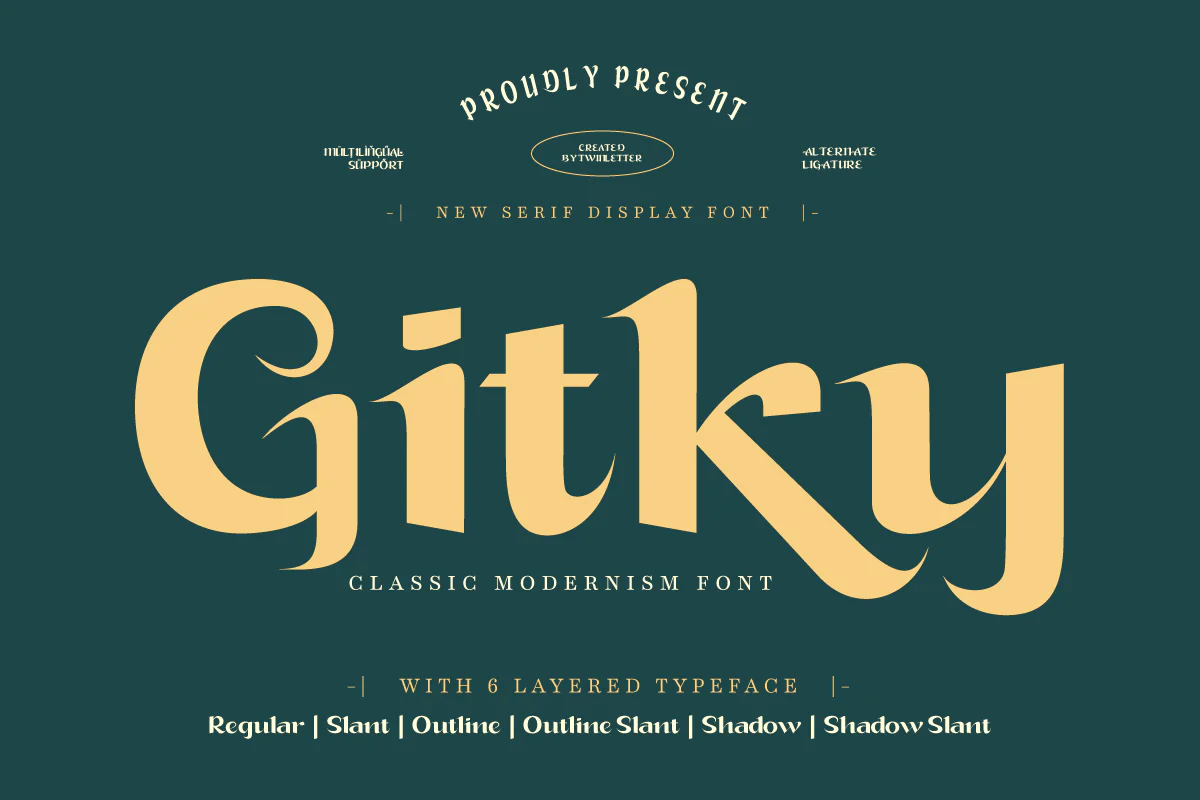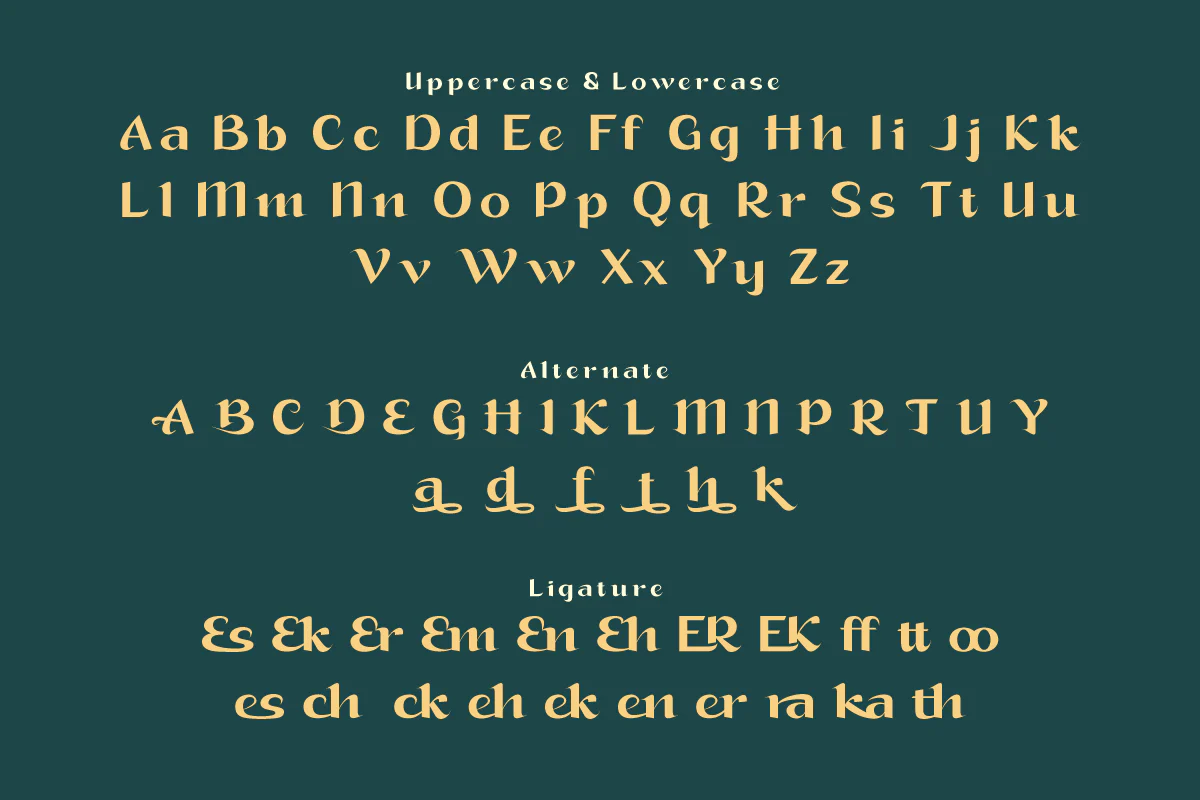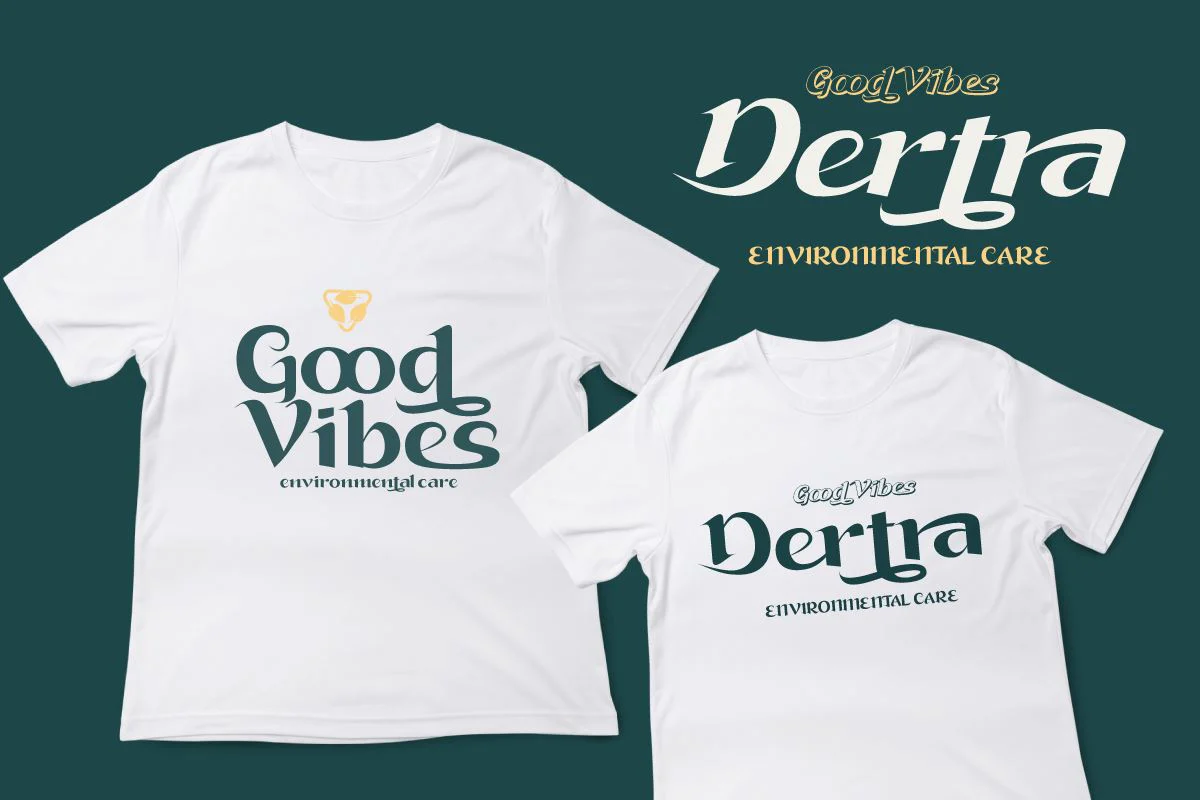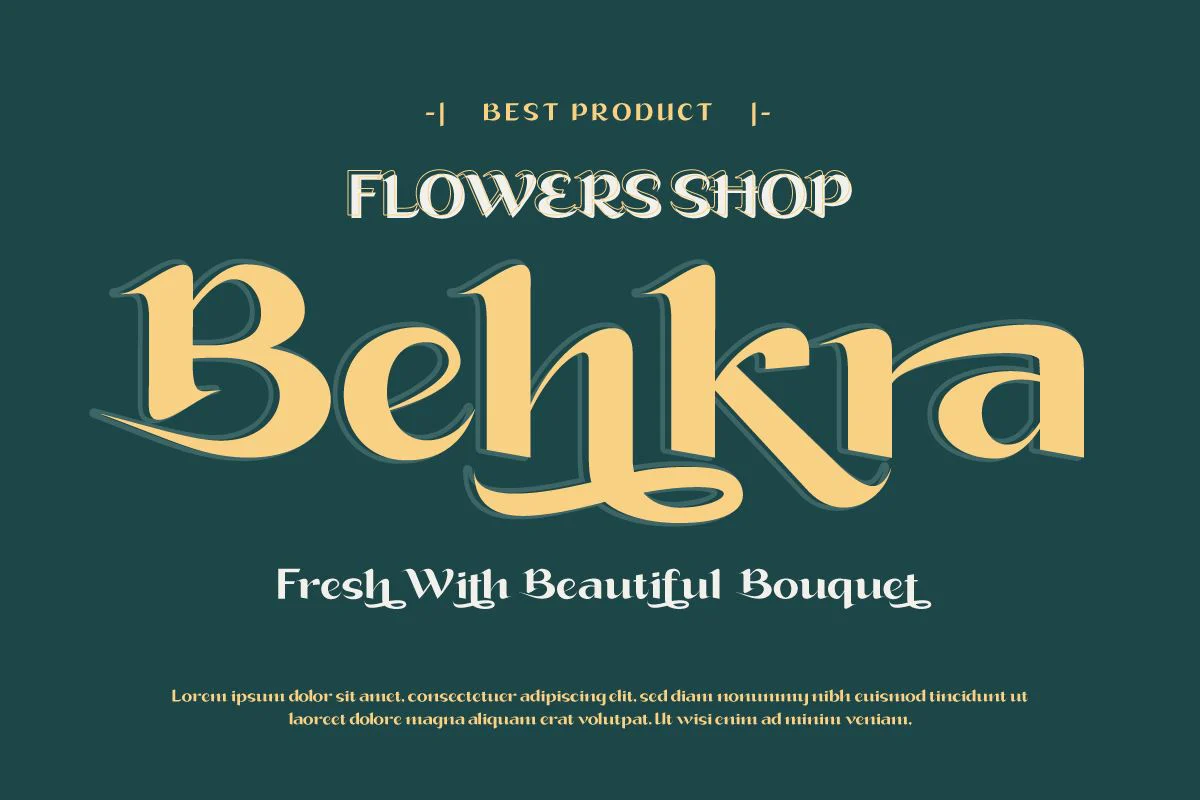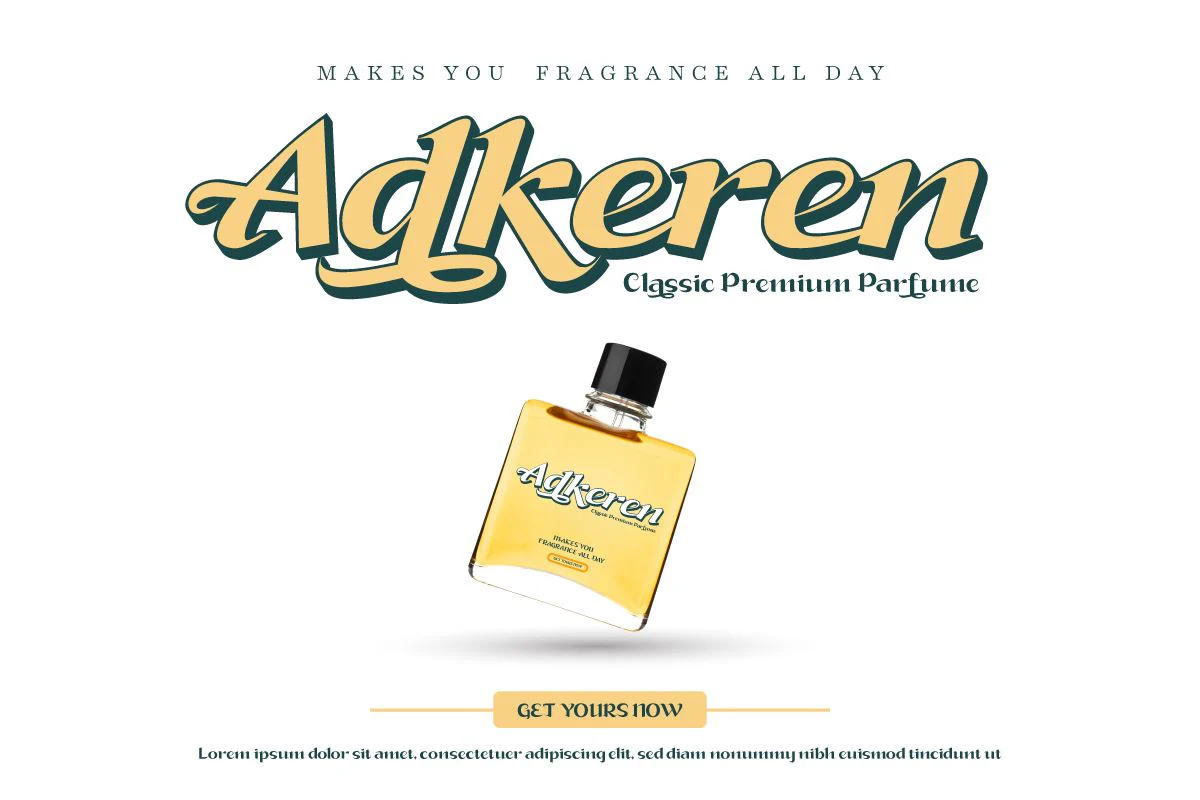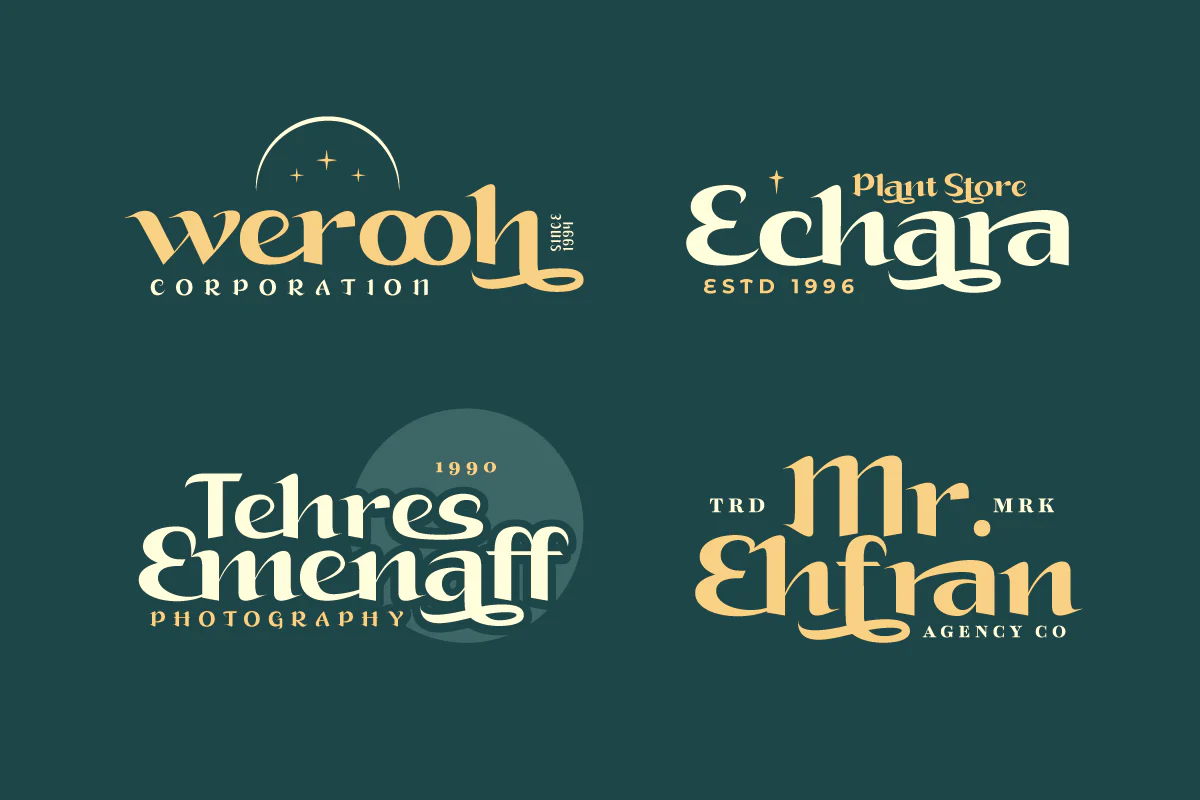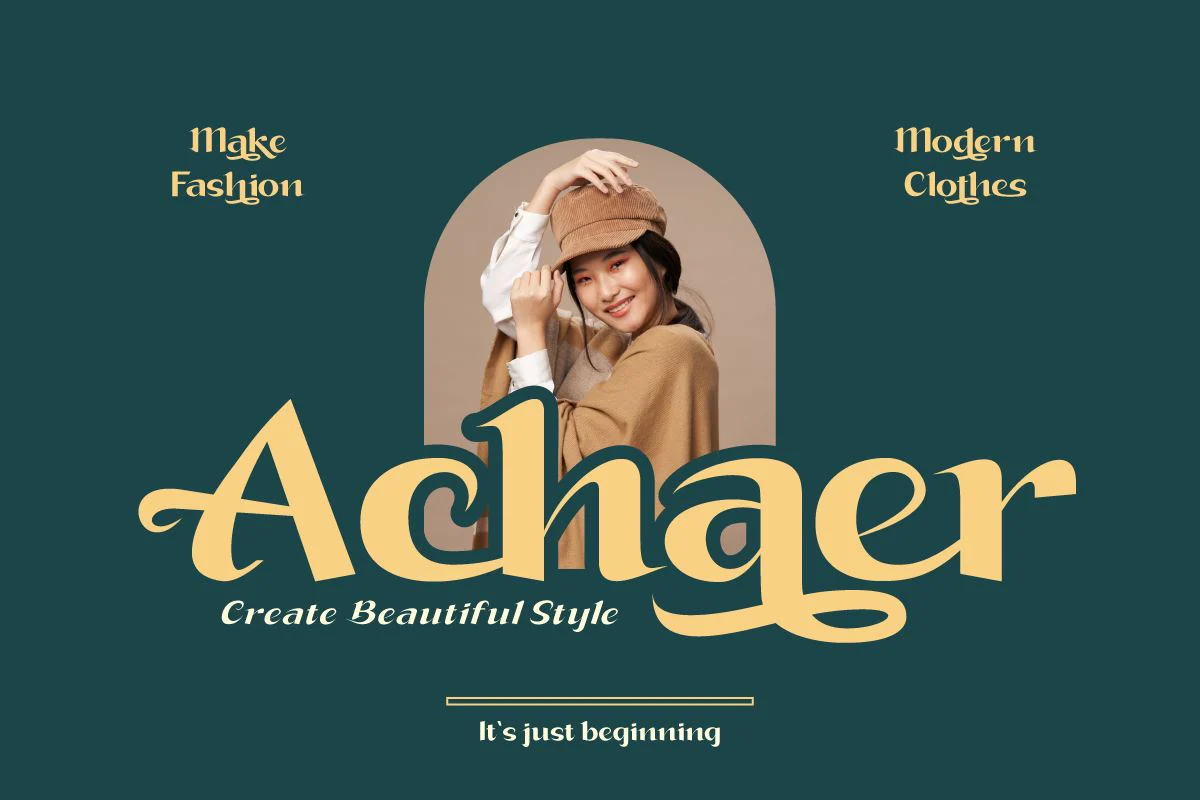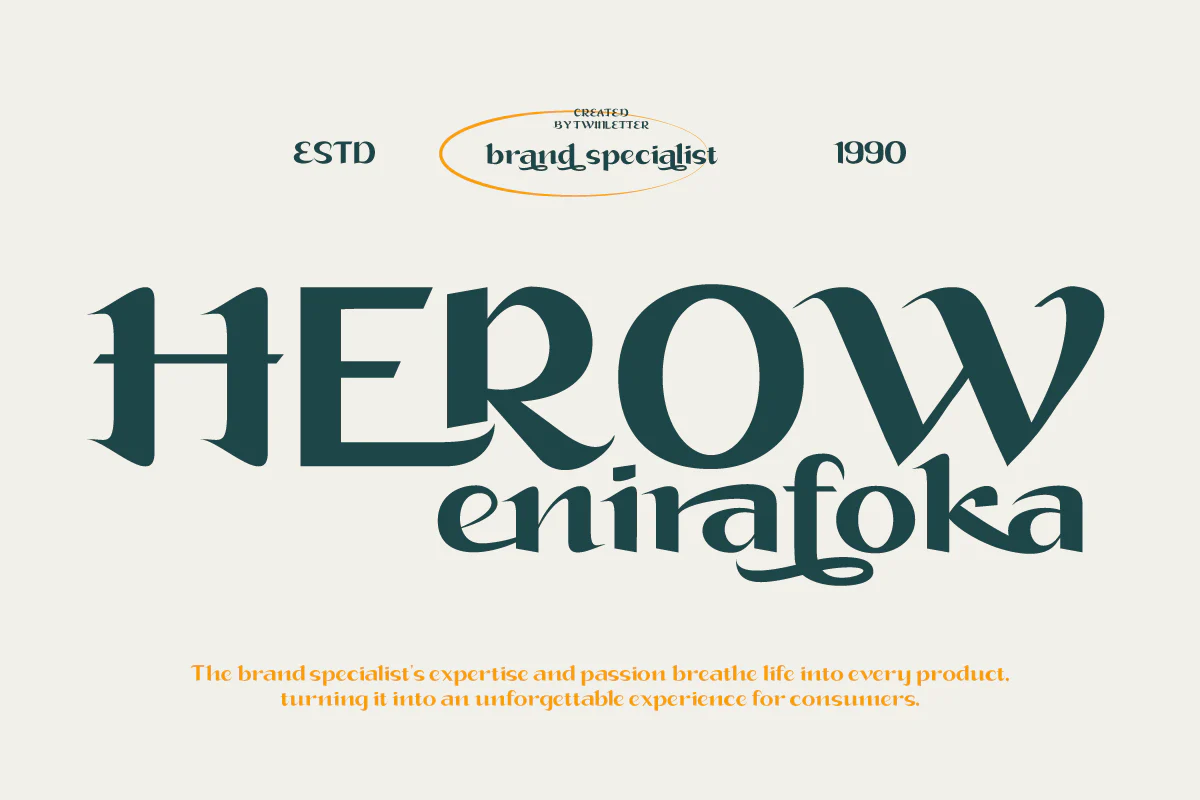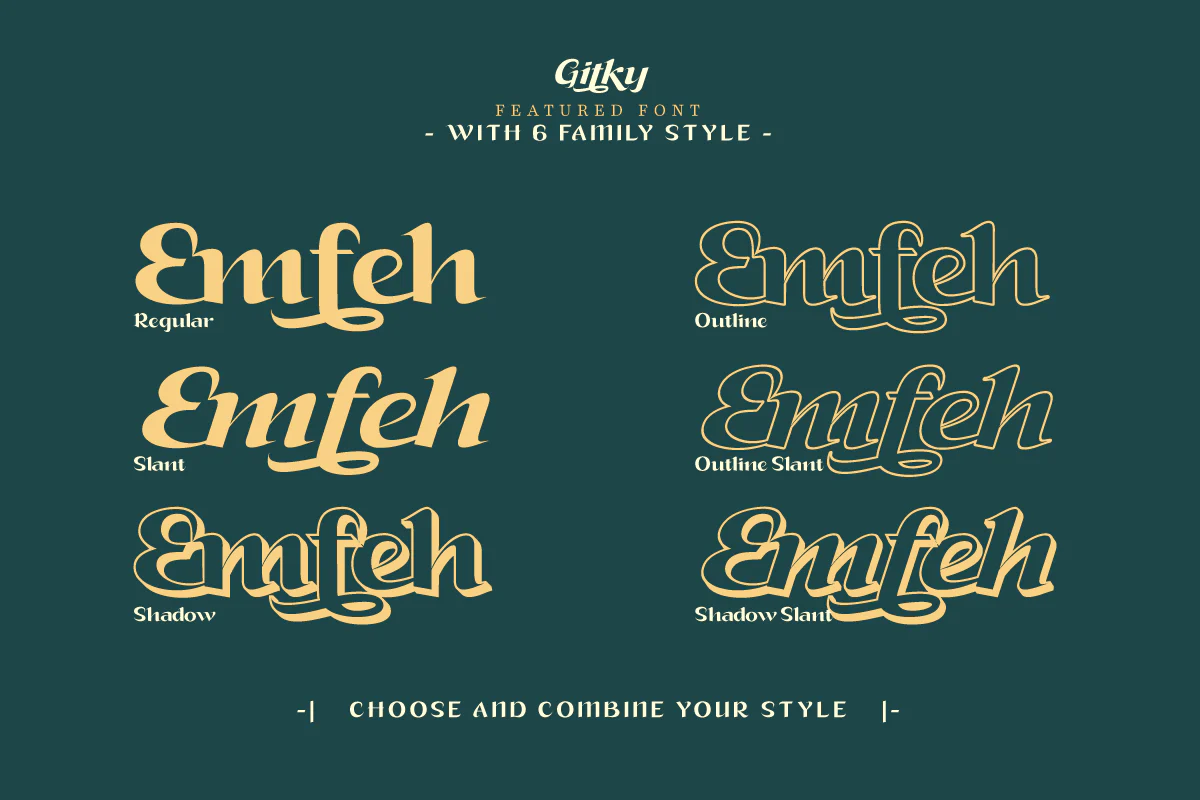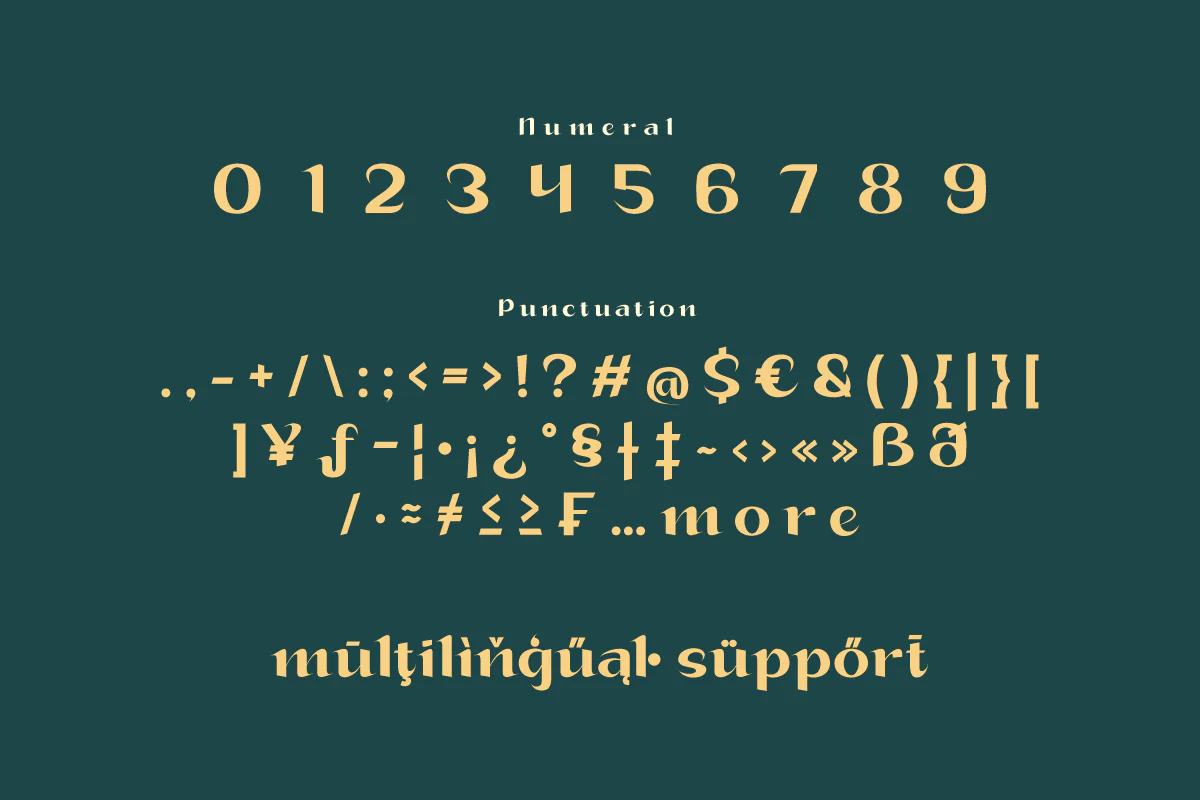
Gitky - Display Font
The Gitky font, with its signature elegant display serif style, brings a classic, sleek touch to any of your design projects. The beauty and boldness of each Gitky letter make it suitable for various design projects that require an elegant and classy impression.
The Gitky font family, including regular, shadow, outline, and Slant variants, provides flexibility in your design creations. No matter whether you're designing branding, marketing materials, or any other project, Gitky gives you the right tools to stand out.
With features like ligatures and alternates, Gitky allows you to customize your designs with perfect detail. This font also supports multiple languages, making it an inclusive choice for a global audience.
In the fast-paced world of design, Gitky provides a solid foundation with a strong serif style. Choose Gitky for projects that require impressive rigor and elegance.
The Gitky font, with its signature elegant display serif style, brings a classic, sleek touch to any of your design projects. The beauty and boldness of each Gitky letter make it suitable for various design projects that require an elegant and classy impression.
The Gitky font family, including regular, shadow, outline, and Slant variants, provides flexibility in your design creations. No matter whether you're designing branding, marketing materials, or any other project, Gitky gives you the right tools to stand out.
With features like ligatures and alternates, Gitky allows you to customize your designs with perfect detail. This font also supports multiple languages, making it an inclusive choice for a global audience.
In the fast-paced world of design, Gitky provides a solid foundation with a strong serif style. Choose Gitky for projects that require impressive rigor and elegance.